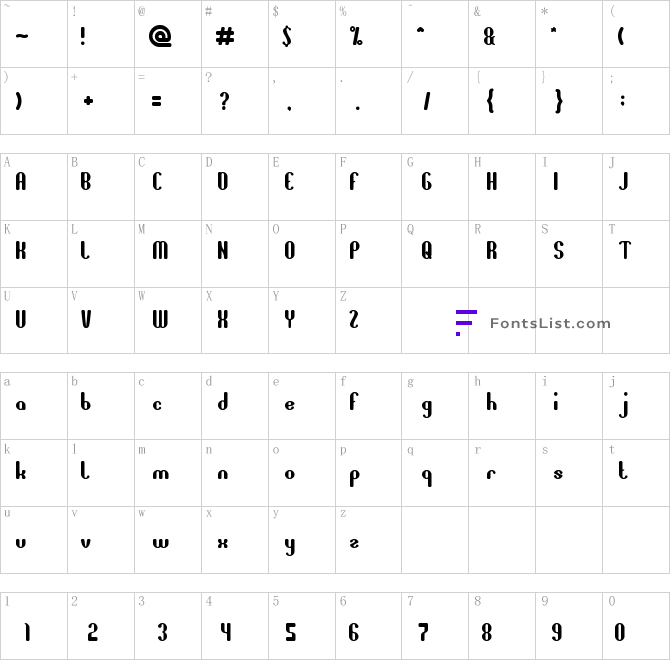
- Font Name:all around the world
all-around-the-world.ttf is a very beautiful artistic font, all-around-the-world.ttf is widely used in the design and printing of various books and pictures,all-around-the-world.ttf has a strong visual impact,all-around-the-world.ttf is a commonly used font in newspapers, magazines and books, and is used in posters, e-commerce Poster design, store design, logo design, font design and other fields.all-around-the-world.